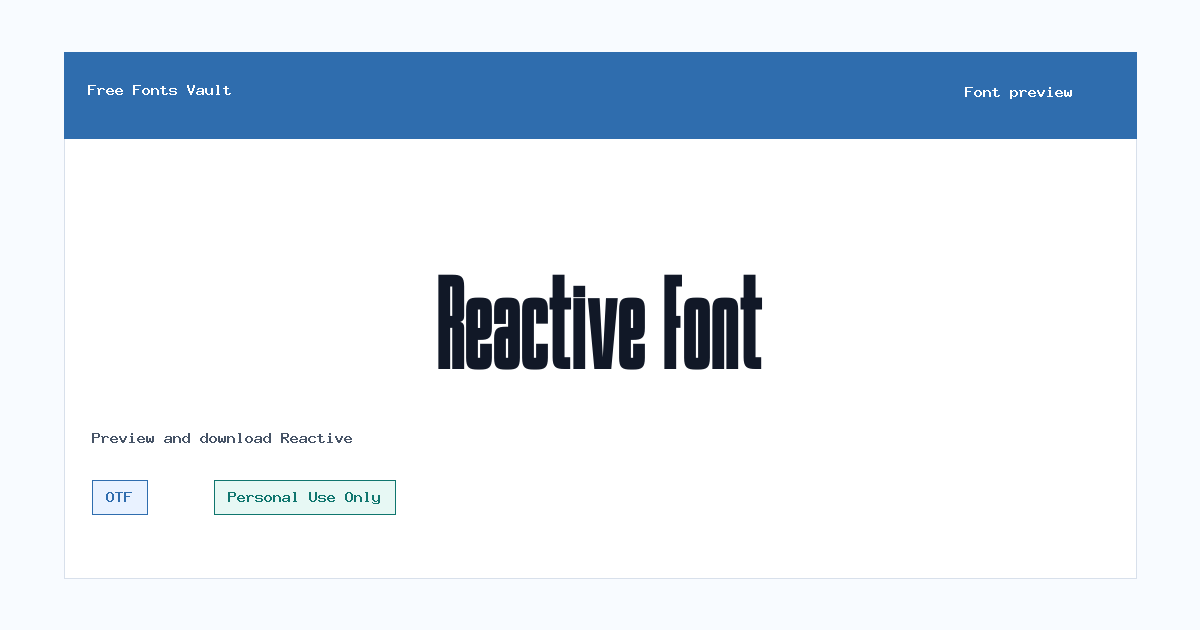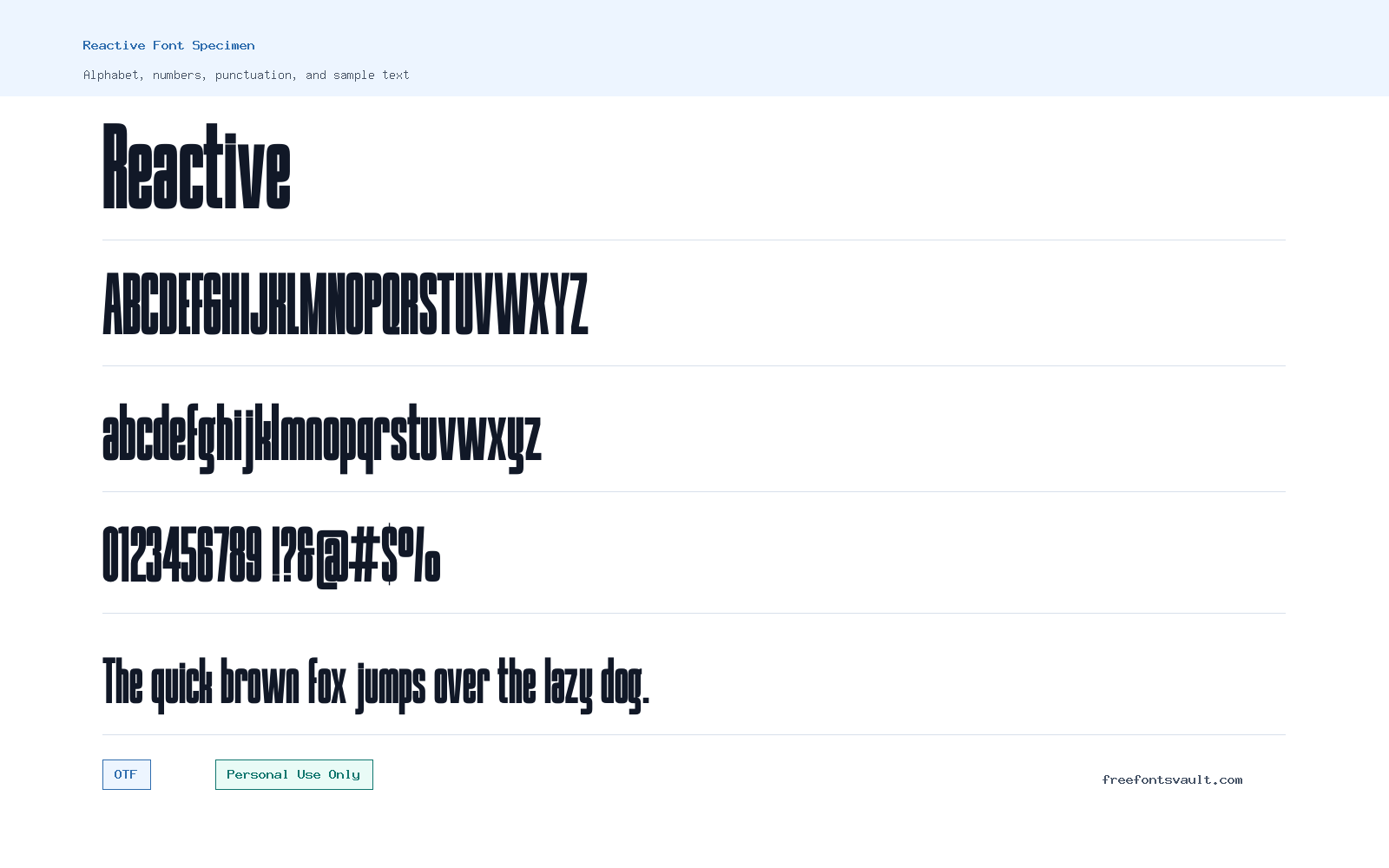
Reactive
Reactive Font
Reactive is a display font from Funtype Co. with a personal-use license. It is best approached as a headline or short-text typeface: try it in the preview, test your own words, and make sure the style fits before downloading.
About Reactive Font
Reactive is presented as a display font, so it is meant for moments where the lettering carries the visual tone rather than simply supporting long reading. Use it for names, short headlines, poster text, social graphics, mockups, and other places where a single word or phrase needs more character. Because only one regular OTF style is listed, the most reliable way to judge it is to type the exact wording you plan to use and compare it at different sizes.
For design work, keep Reactive in the role of an accent font. Pair it with a plain sans serif or a readable serif for body copy, captions, and supporting information. If you are building a poster, thumbnail, cover image, or display title, check spacing carefully around letters with wide or unusual shapes, and avoid setting long paragraphs in it. Display fonts can look strong in large sizes but may lose clarity when used too small, so test the preview at both headline and mobile-screen sizes before you commit.
• Display-focused style suited to short titles, logos for personal mockups, posters, and graphic headings.
• Single listed style, which keeps testing simple but means bold, italic, or extended weights are not confirmed.
• Poster titles and event-style graphics for personal projects
• Social media artwork, thumbnails, and short promotional mockups
• Display headings in design drafts where the text is brief
• Personal branding tests, mood boards, and concept presentations
• Large preview text where the font’s shape can be judged clearly
What kind of font is Reactive?
Reactive is presented as a display font. That means it is better for short, attention-focused text such as titles, posters, and graphics than for long paragraphs.
Who designed Reactive?
Reactive is credited to Funtype Co., which is also listed as the foundry.
How should I use Reactive in a design?
Use it for short display text and pair it with a simpler font for body copy. Test your wording in the preview, especially if the text will appear small or on mobile screens.